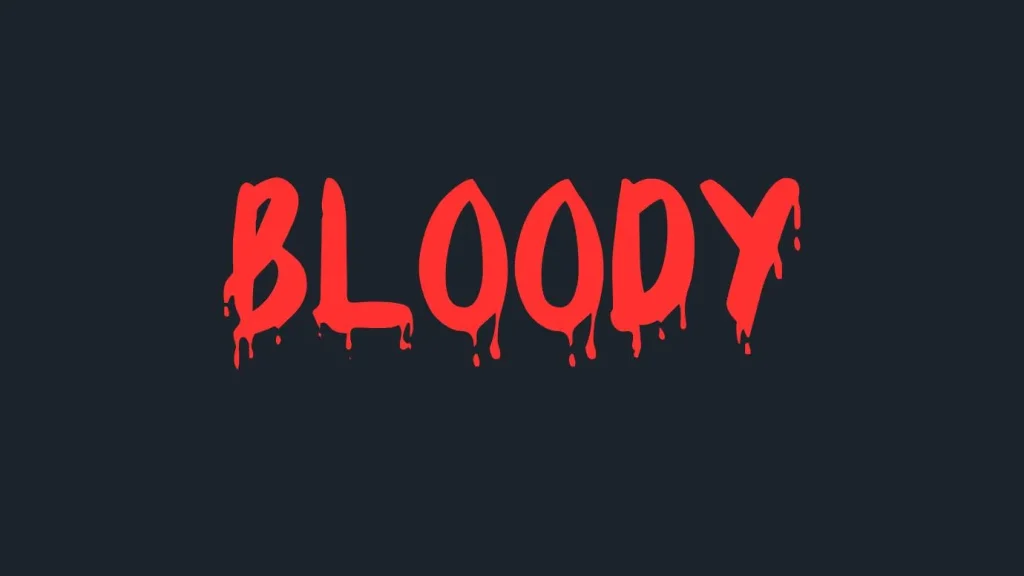
James Fordyce created the unique fancy design known as Bloody Font. Numerous designs are available in this beautiful typeface, which you may use for a range of different purposes.
These typefaces feature case-sensitive digits, divisions, constants, and respondents. Different styles are available in both thick and thin versions to produce a range of attractive layouts.
This stylish font’s distinctive characteristics make it ideal for designs on t-shirts and jackets as well. This text style is interesting since it offers your projects a more elegant and beautiful appearance.
The font is suitable for video games, visual editing, and logo designs, among other things. This type of textual style may be used to conduct an attractive, in-depth analysis of your content and strategy.
This text style is used by visual developers because of its attractive appearance. The text style is appropriate for logo designs and real-world movie titles. Additionally, it is helpful for game planning. For a more alluring design project, I suggest incorporating this font alongside another distinctive typeface like the john deere font.
You can use this text style to create, banners, gift cards, and covers for digital books. For website designing, blogging, and many other related planning purposes, this stunning text-based style is ideal.
What kind of text formatting is Bloody?
This gorgeous typeface belongs in the fancy typeface group. It’s suitable for body text and may be used for a variety of tasks.